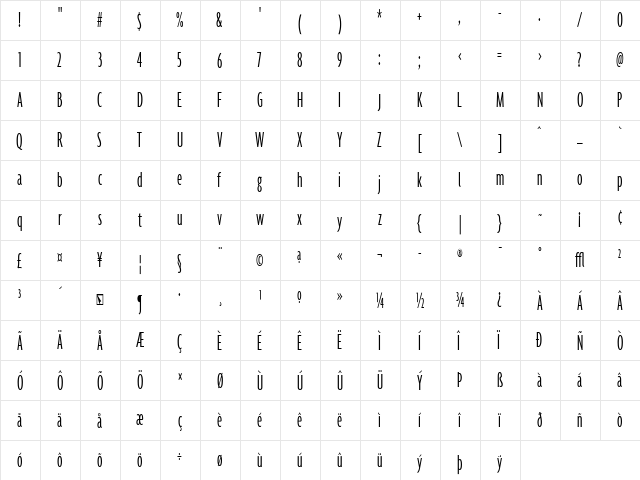
Agenda LightUltraCondensed Font Preview
Agenda LightUltraCondensed
Agenda LightUltraCondensed Font Details
| Style | LightUltraCondensed |
| Foundry | Copr. Greg Thompson. Agenda is a Trademark of Greg Thompson. Produced by The Font Bureau, Inc |
Design Context for Agenda Typeface
Agenda takes a measured approach to typography — its balanced proportions and neutral character make it a reliable workhorse for both digital and print work. Its slender proportions lend an understated elegance to any composition. Its narrow stance lets it pack a punch even in space-constrained designs.
Pro Tip: Pair Agenda with a font of contrasting weight or personality to build a more expressive typographic hierarchy.